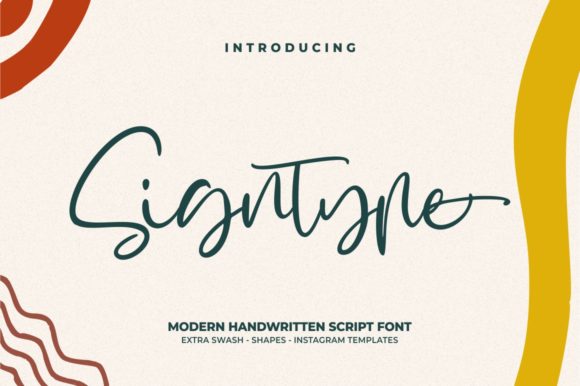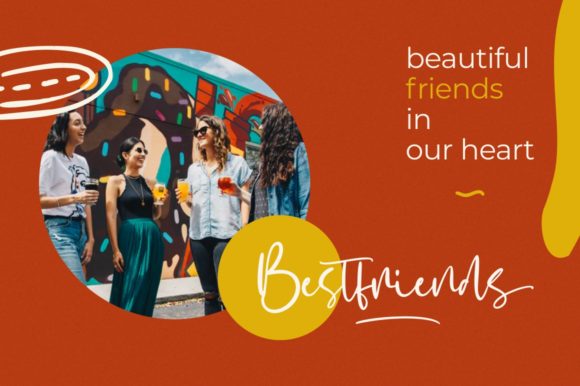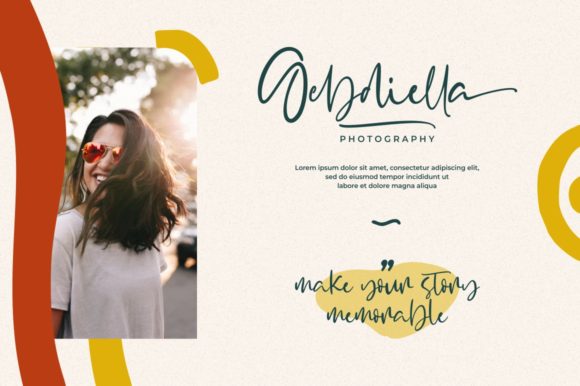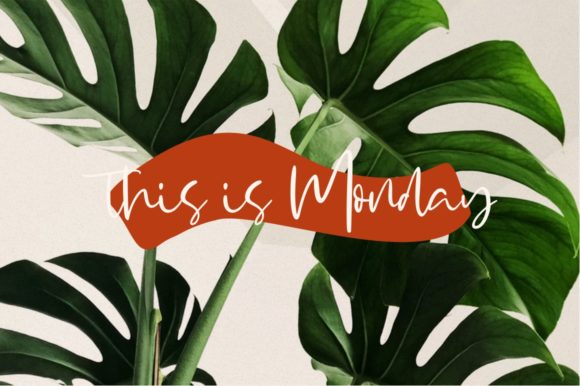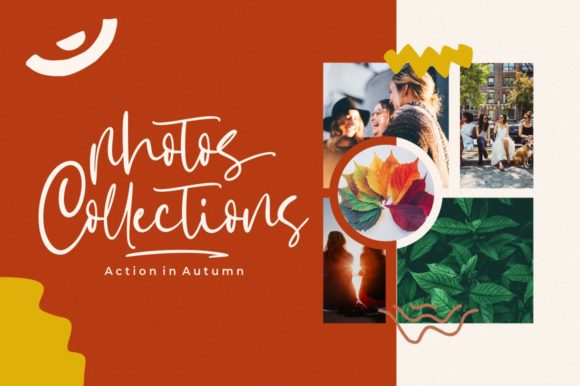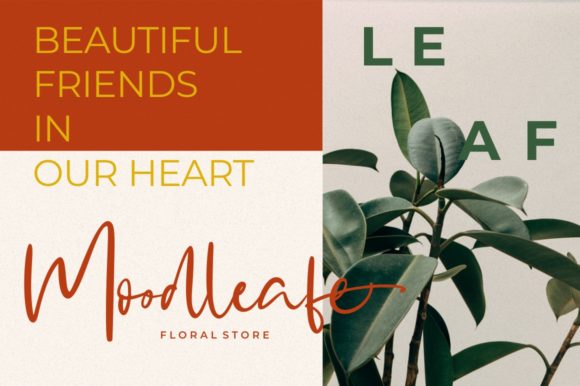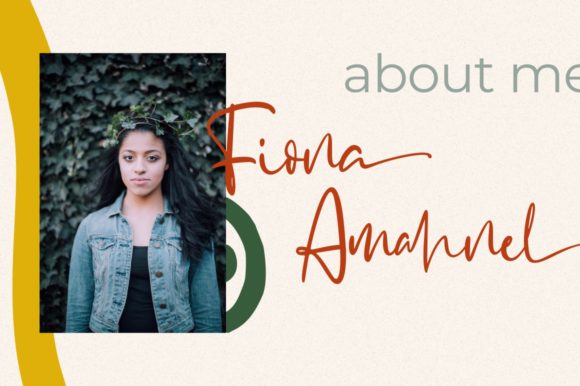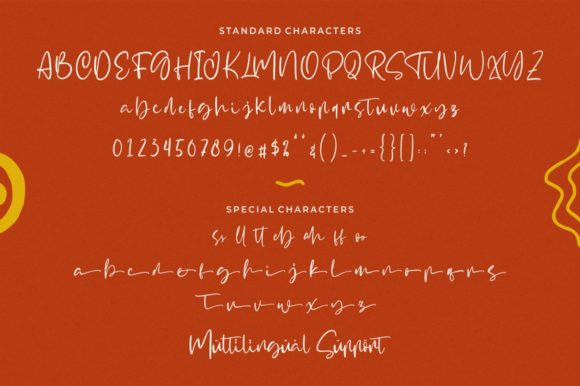
Signtype Font
About Signtype Font
Signtype is a modern and organic script font that delivers natural handwriting. Get inspired by its contemporary look.